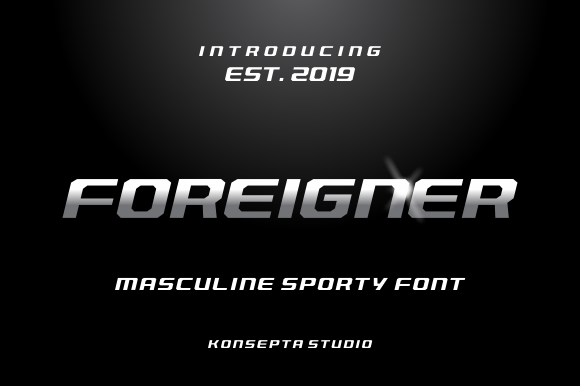
Preview and download Foreigner Font. Created by Konsepta Studio in Techno Various styles with Free for personal use license.
Font name: | Foreigner |
Author: | Konsepta Studio |
Hi, there! Proudly present our next font experimental project, Foreigner. Foreigner is a masculine, elegant and sporty font, inspired by the design of retro car emblems. It's very macho and elegant, but has a distinct sporty feel, which makes is suitable for any design projects that requires a flashy, and cool touch, but still minimalist. You can use it for personal use only. But, if you wanna use this for commercial purpose, feel free to contact me at konseptastudio@gmail.com. Feeling generous today? Making fonts is very time-consuming, you know... So, if you find the value from my work, consider to give a donation. Believe me, your donation will boost my creativity to create beautiful fonts, more and more in the future. Paypal account for donation : https://paypal.me/konseptastudio/ Purchase at our store : https://www.creativefabrica.com/product/foreigner/ref/235542/ Thanks for the download and donation. Let's have font together! :) |